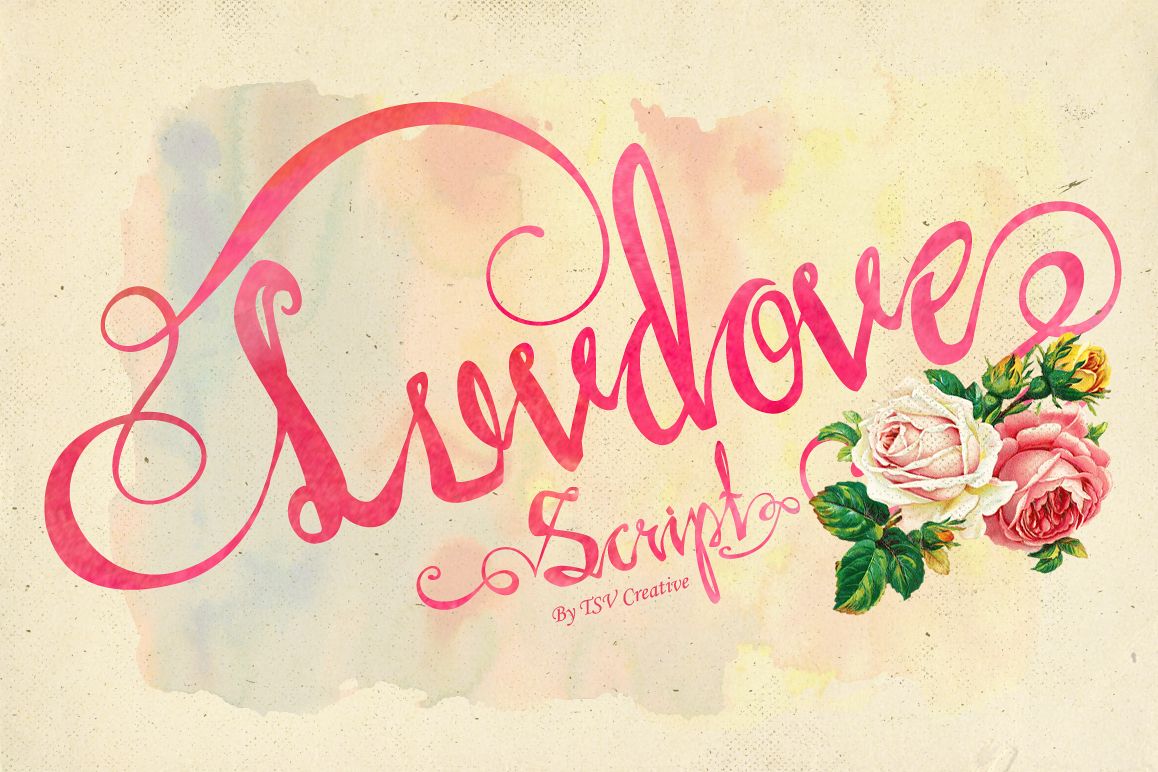
Luvdove Script
Let me introduce Luvdove Script - A classic modern hand drawn script typeface, made with full of love from our heart! :)
With hand drawn looking line and many alternates glyphs you will have many beatiful variations for your creation of lettering or any design project.
Feature :
- Numeric
- Alternates
- Punctuations
- 22 front swashes and 22 back swashes
Each swash can be swap for every alphabet character, so hundred possibilities of variation is available